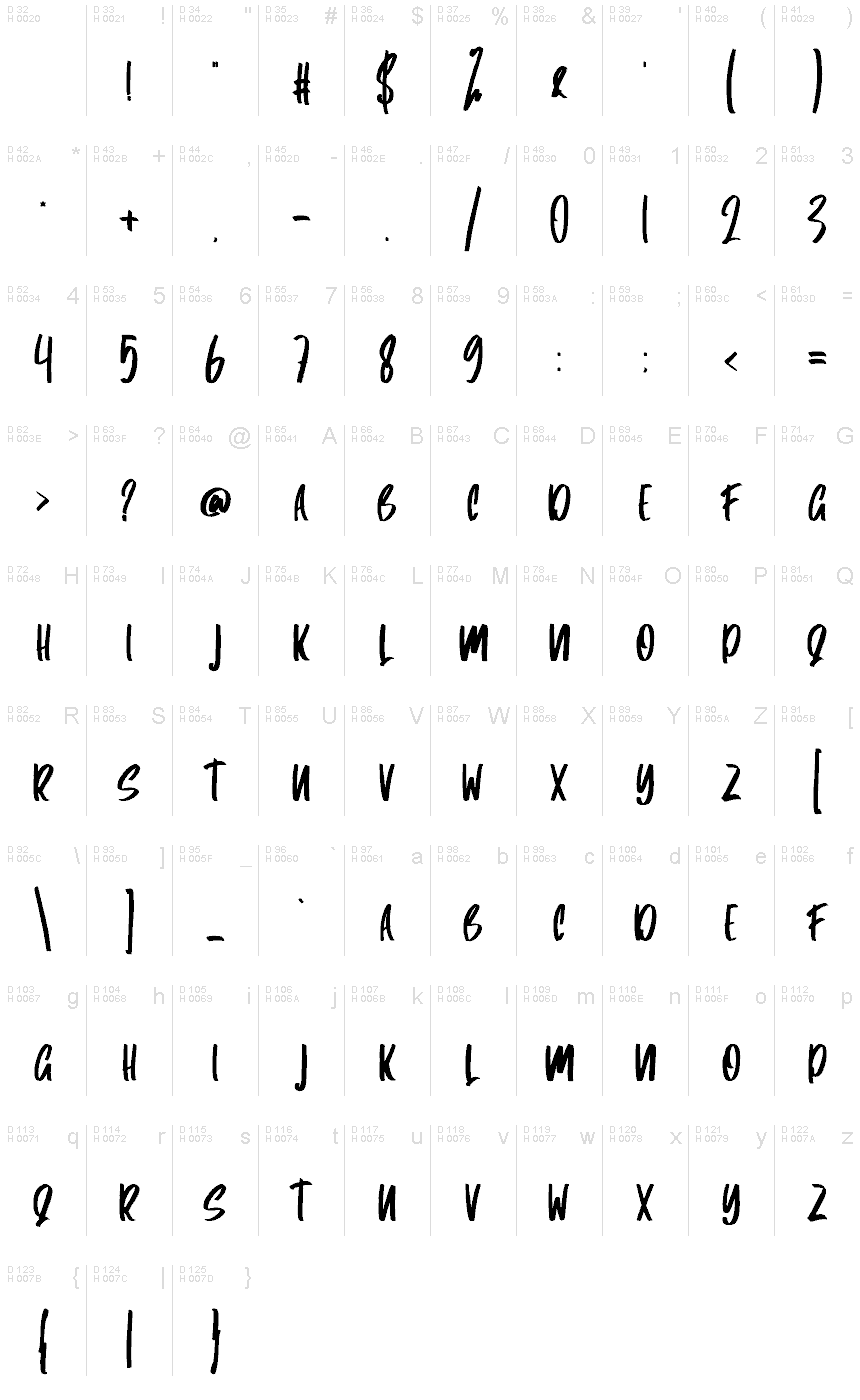
Trabays
Trabays font designed by Skiiller Studio is a free brush font that combines expressive flair with casual elegance. Its energy and modern appeal add an artistic vibrancy to any project, making it especially well-suited for designs that need a youthful touch.
The font's possibilities expand across branding projects, social media graphics, posters, invitations, apparel prints, logos, headlines, book covers, product packaging designs or signage and wayfinding systems.